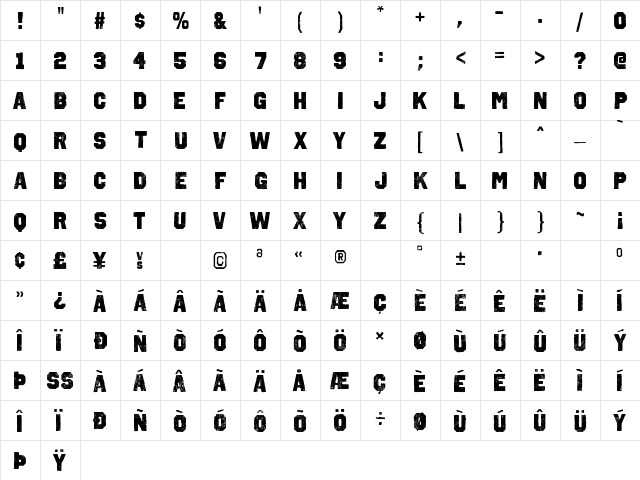
Octin Vintage A Black
Design Context for Octin Vintage Typeface
Octin Vintage wears its vintage influences proudly, with letterforms that recall mid-century signage, classic packaging, and nostalgia-driven design.
Perfect for vintage-inspired branding, retro packaging, nostalgia campaigns, and period-accurate editorial design.
Font Pairing: Combine Octin Vintage with a simple slab or neutral sans — period-accurate companions reinforce the vintage feel without competing for attention.
Pro Tip: Use Octin Vintage for headlines and pull quotes rather than body copy — its personality is best appreciated in short, focused bursts.